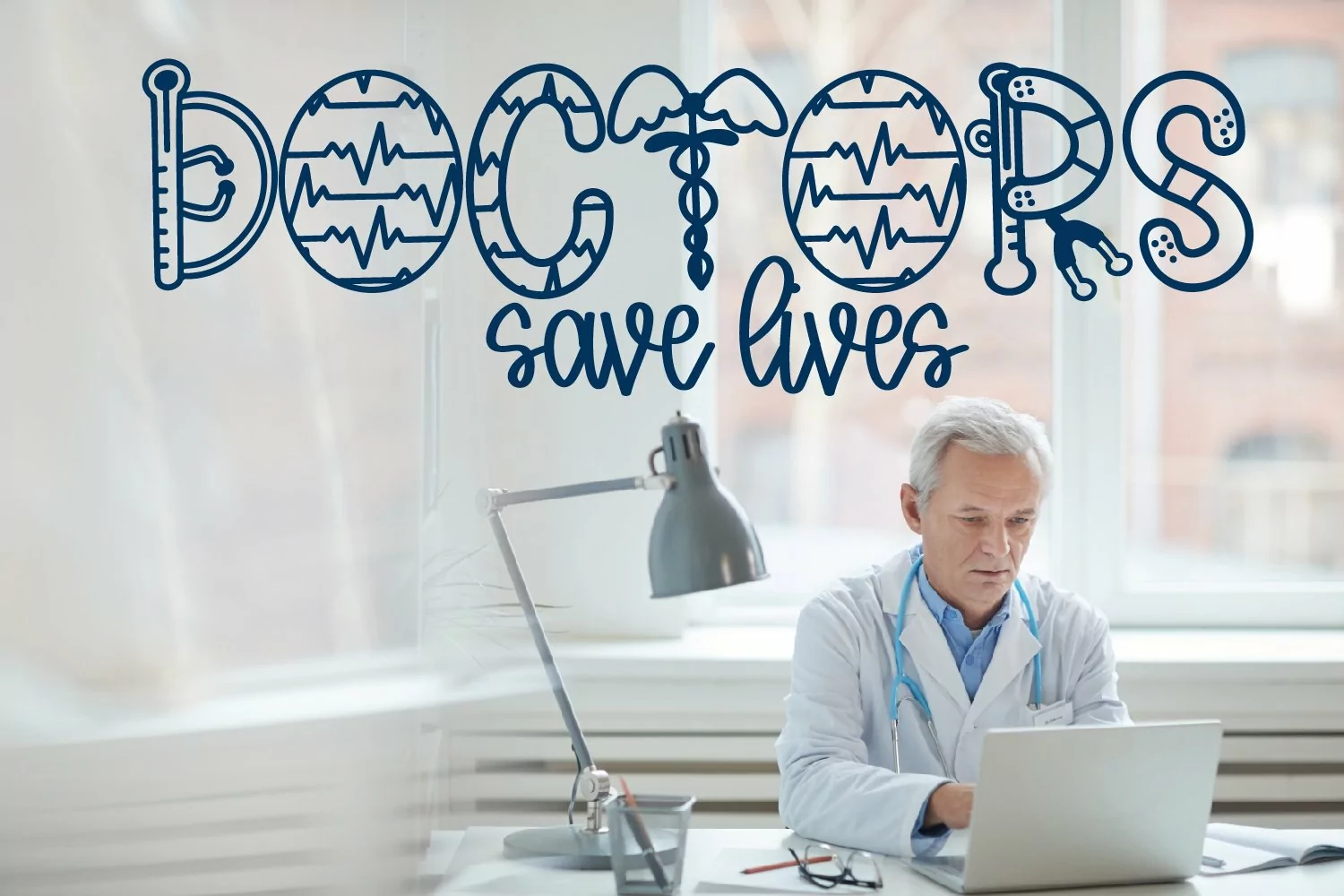
Nursing - A Fun Medical Word Art Font with Clipart
This font includes 1 OTF/TTF with all of the wordart letters on the lower case - upper case/letters/symbols have a bunch of clipart programed in for you to pair with your new font. :)
26 letters and 14 pieces of hand drawn clipart